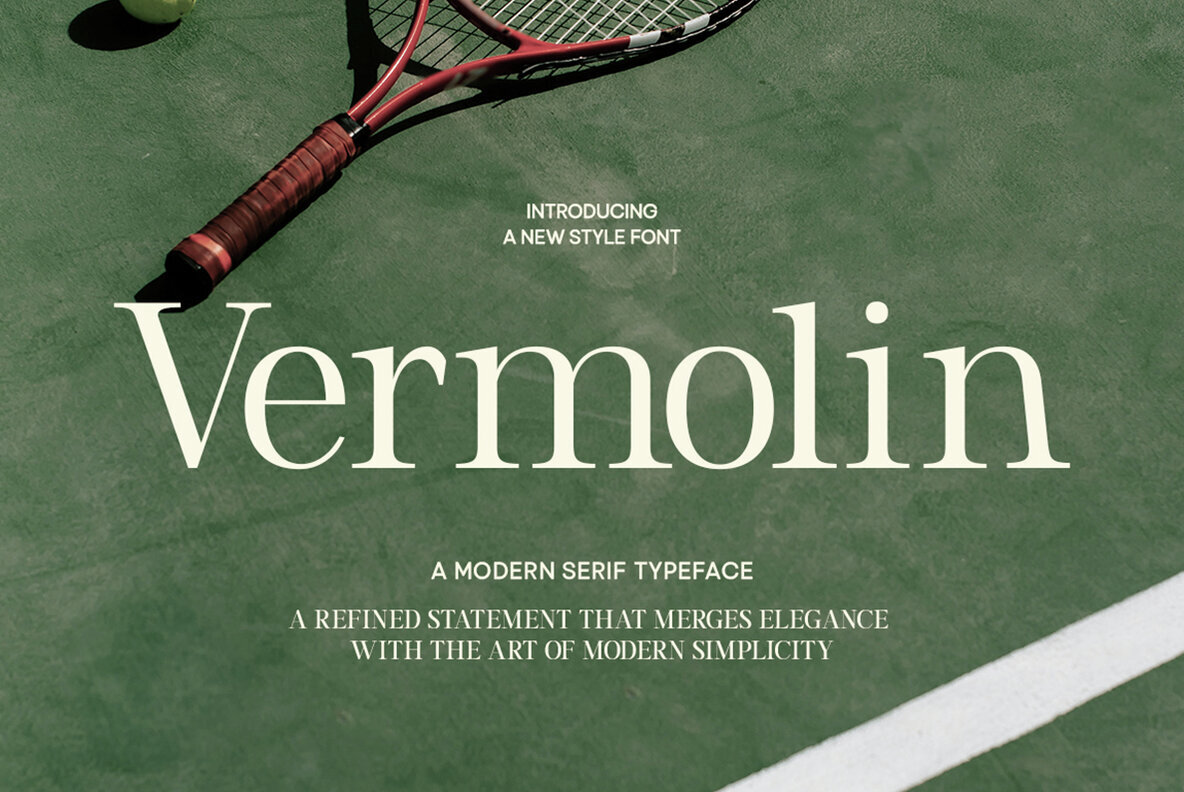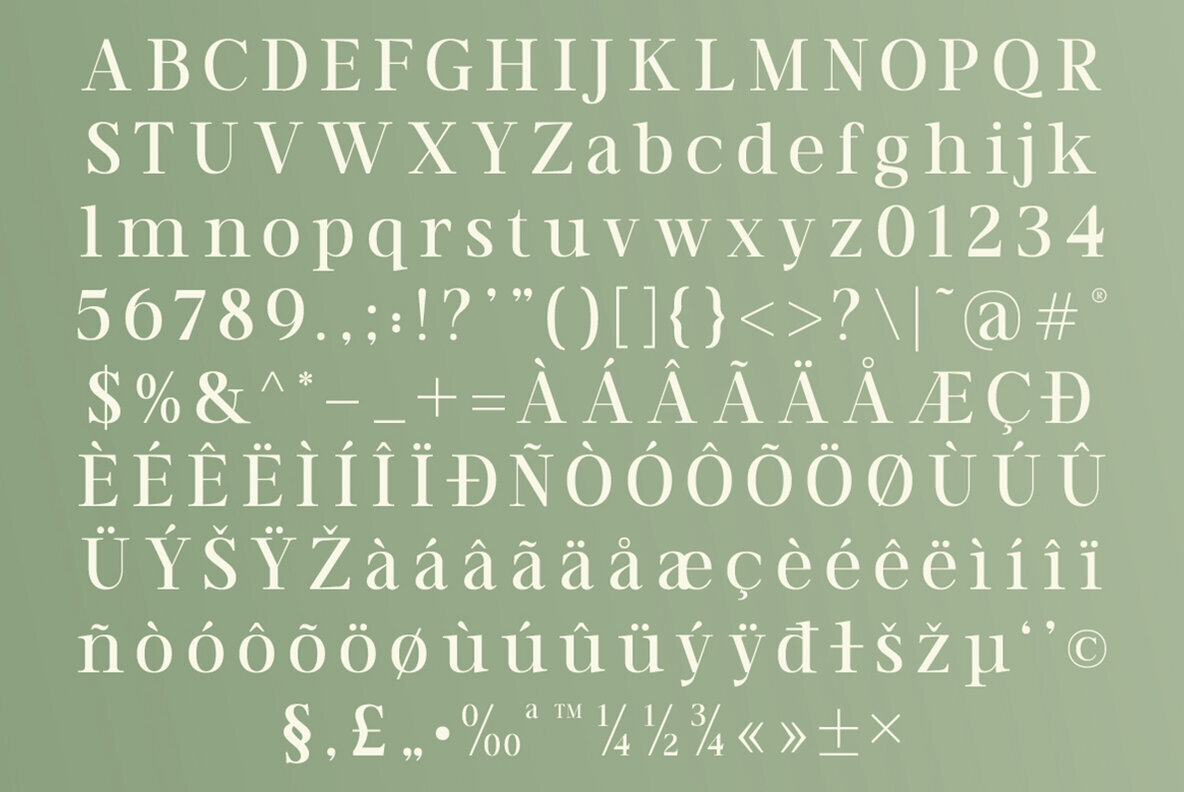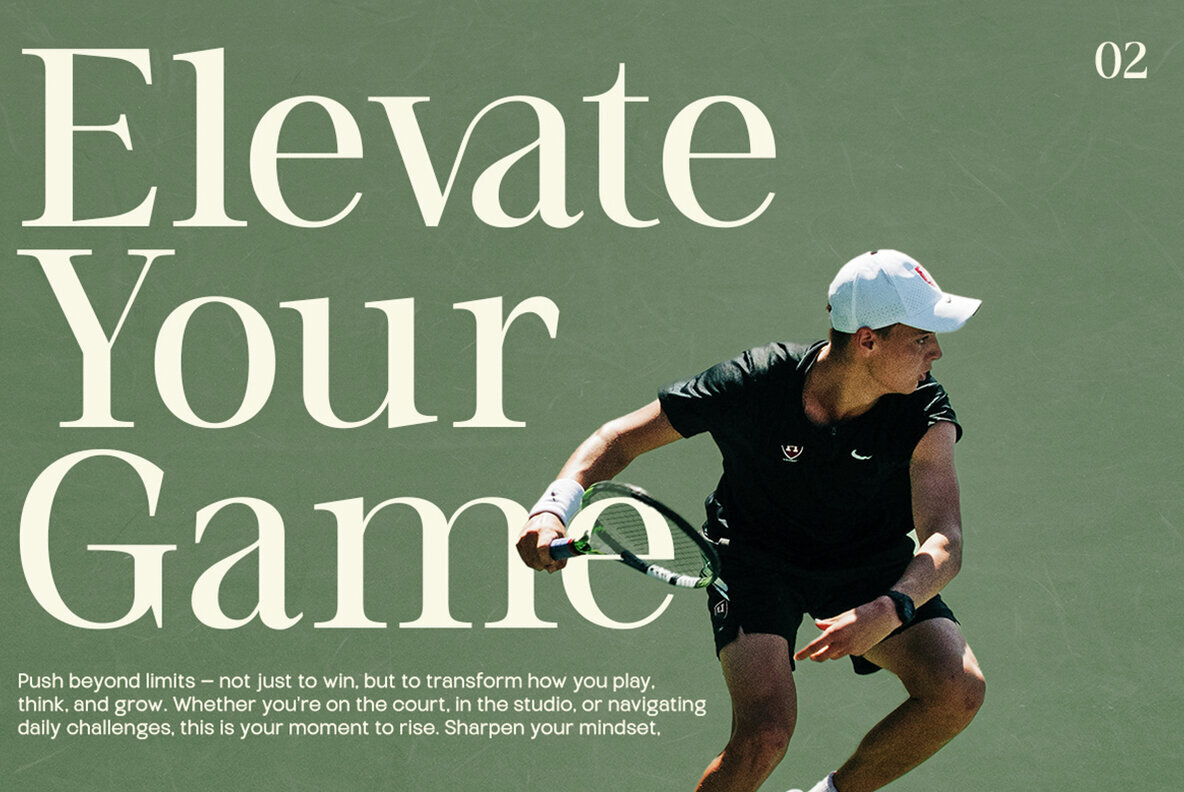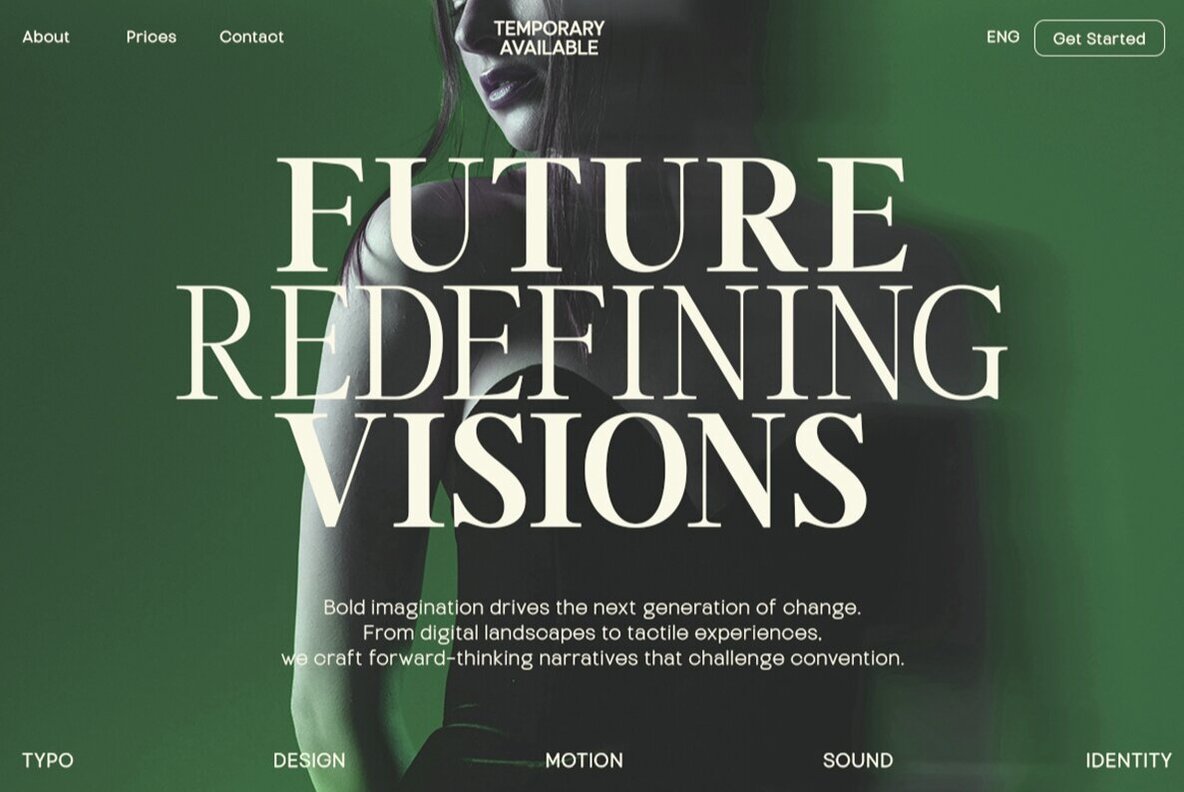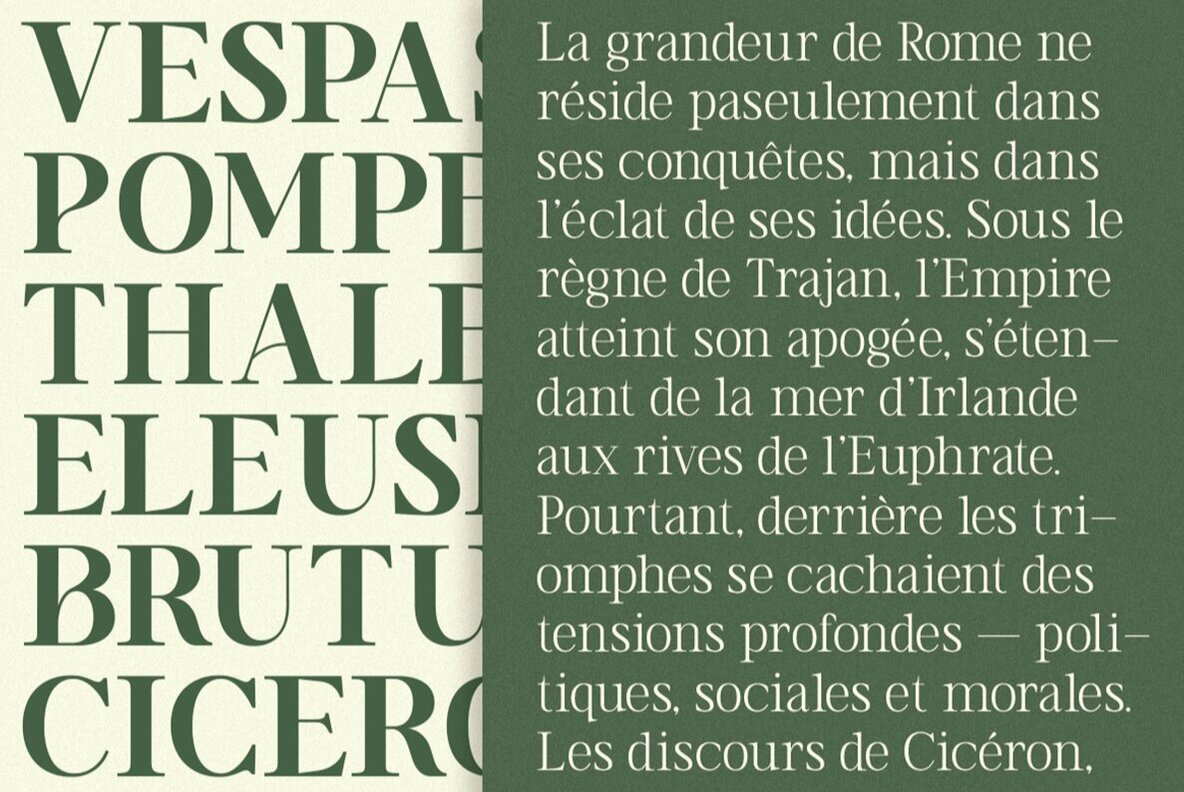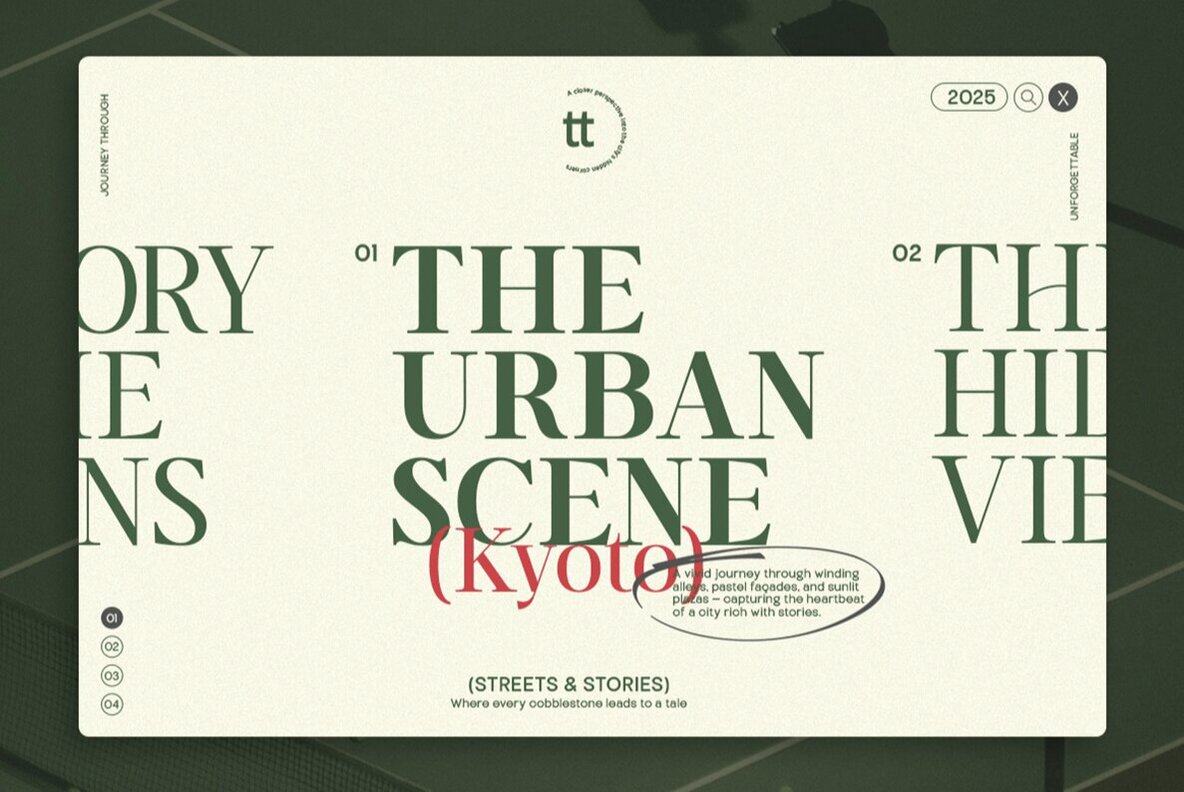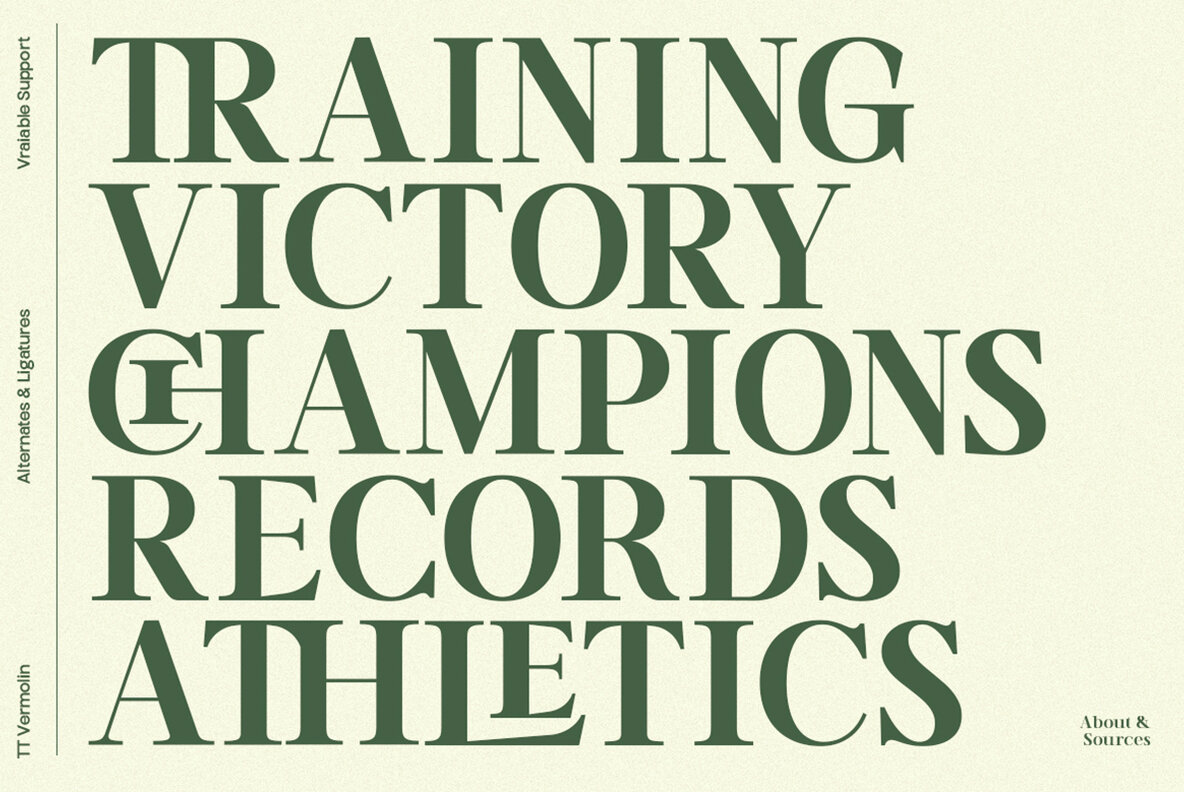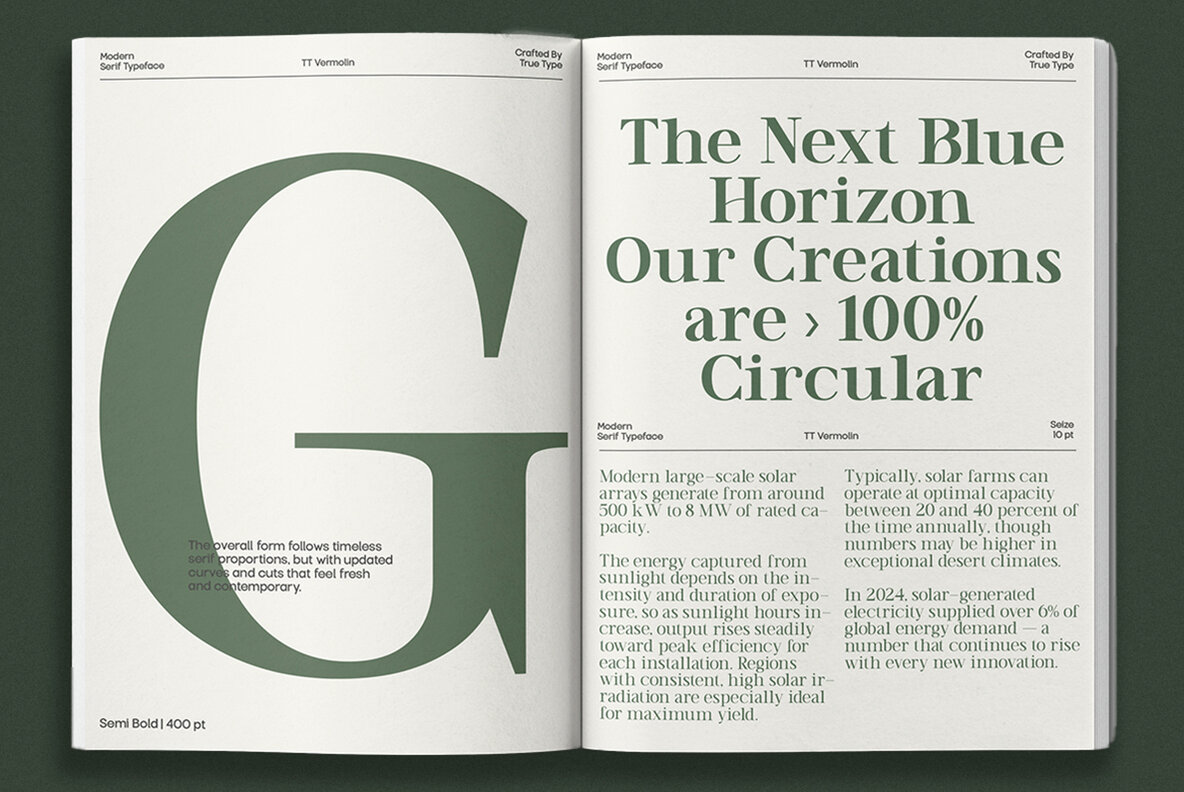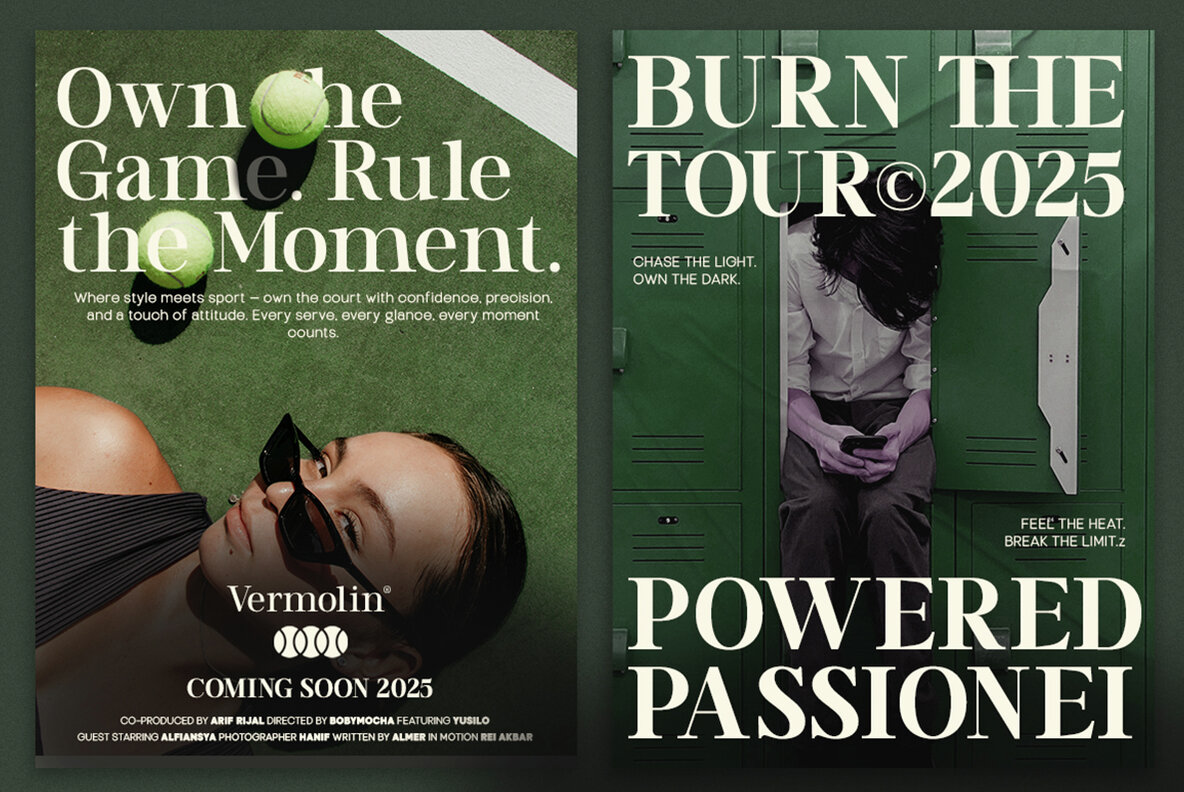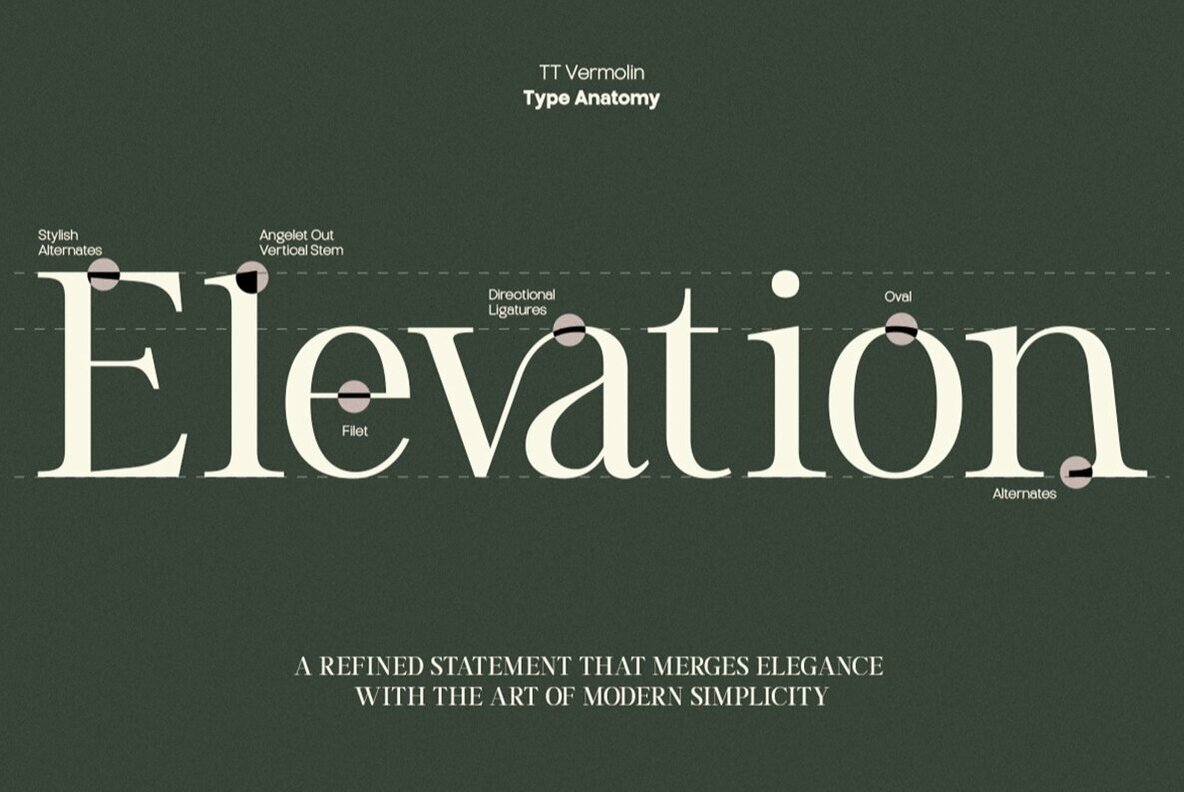
TT Vermolin Font
Vermolin is a refined serif typeface that embodies timeless sophistication through its sharp contrasts, high vertical stress, and sculptural forms. Carefully crafted for high readability and impact, Vermolin excels in editorial, branding, and luxury packaging applications. With elegant proportions and subtle details, each letterform is designed to convey confidence and clarity. Its generous x-height and slender stems make it an ideal choice for both print and digital platforms, endowing your layouts with a distinguished sense of prestige. Whether for headlines, magazine spreads, or graceful brand identities, Vermolin offers a distinct voice that is simultaneously classic and contemporary.Vermolin Serif Typeface: Timeless Sophistication